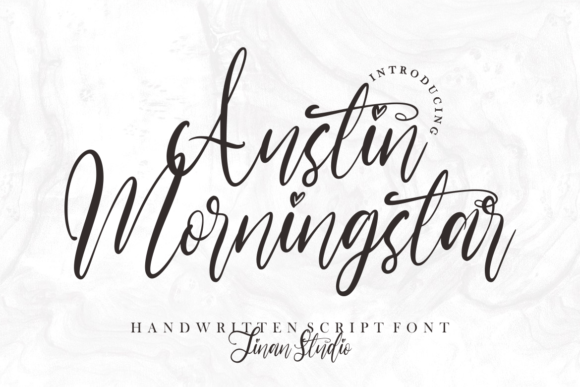
The Austin Morningstar Font: A Romantic Touch for Your Creations
I’ll never forget the time I was working on a project for a client’s wedding invitation. I had the design concept nailed, but something was missing – the perfect font. I scoured the internet, tried out countless fonts, but none seemed to capture the romantic essence I was looking for. That’s when I stumbled upon the Austin Morningstar font. It was love at first sight! 💕
This stylish, modern, and elegant handwritten script font has been a game-changer for my designs, and I’m excited to share my experience with you. Whether you’re a designer, crafter, or creative hobbyist, Austin Morningstar is sure to add a touch of romance to your creations.
• ✨ Elegant and sophisticated, perfect for high-end designs
• ✅ Highly versatile, suitable for a wide range of applications (greeting cards, headlines, and more)
• 💫 Beautifully crafted, with intricate details and a unique character
• 🎨 Excellent for creating romantic and whimsical designs
While Austin Morningstar is an amazing font, there are a few things to keep in mind: 🤔
• ⚠️ Some characters may not work well in very small sizes, so it’s best to use it at larger sizes (14pt or higher)
• ⚠️ Limited availability of certain diacritical marks, so it’s essential to check the font’s capabilities before use
The Designer Inspiration Behind Austin Morningstar
The story behind Austin Morningstar is one of passion and creativity. The font’s designer, inspired by the beauty of handwritten scripts, set out to create a font that would capture the essence of romance and elegance. With a focus on intricate details and unique character, Austin Morningstar was born – a font that would bring a touch of sophistication to any design.
Q: What type of designs is Austin Morningstar best suited for?
A: Austin Morningstar is highly versatile and can be used for a wide range of designs, from wedding invitations and greeting cards to headlines and branding materials.
Q: Does Austin Morningstar support OpenType features?
A: Yes, Austin Morningstar supports OpenType features, including stylistic alternates, glyphs, and more.